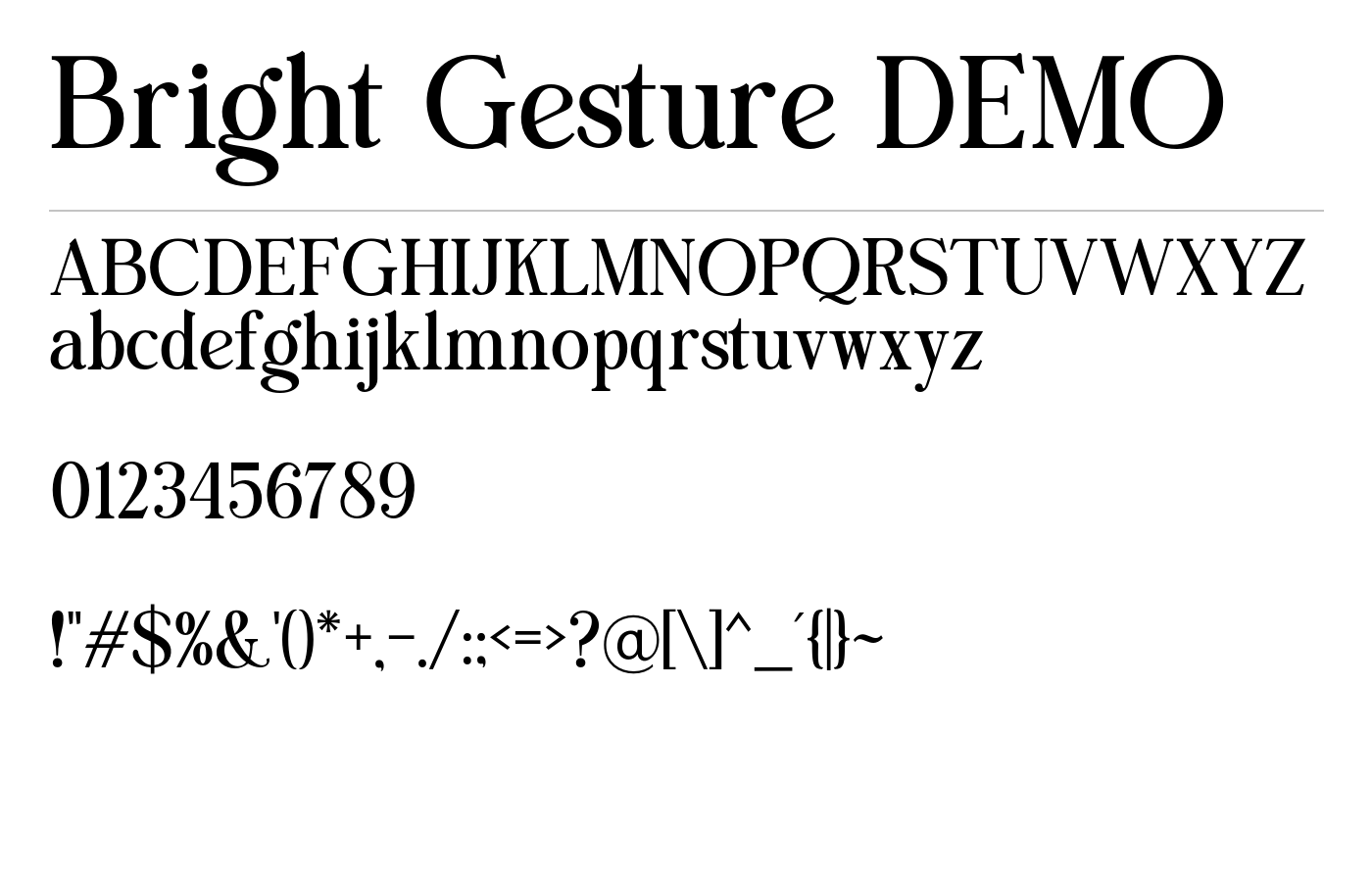
Bright Gesture DEMO is a refined serif font with a classic, elegant feel, featuring moderate contrast between thick and thin strokes and crisp, bracketed serifs that give it a sophisticated yet approachable look. With its medium weight, well-balanced proportions, and traditional double-story characters, it works beautifully for editorial design, luxury branding, and formal headlines, offering readability and timeless charm. This font is ideal for projects seeking a polished, professional appearance that communicates trust and refinement.
Bright Gesture DEMO Font
About Bright Gesture DEMO Font
| Font family | Bright Gesture DEMO Font |